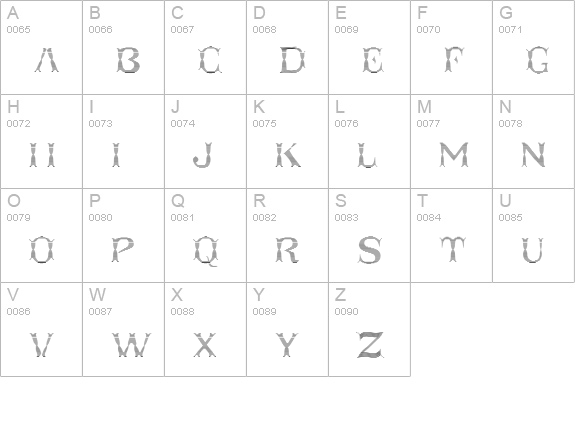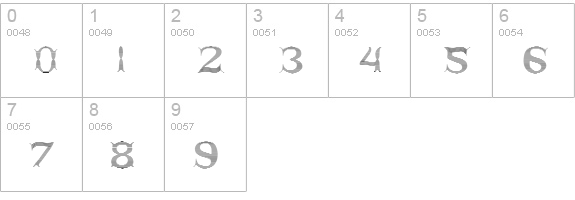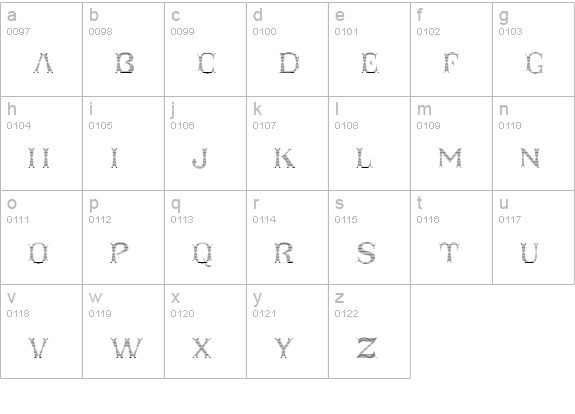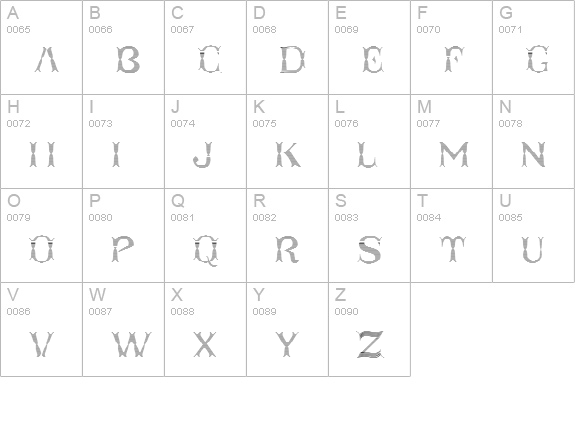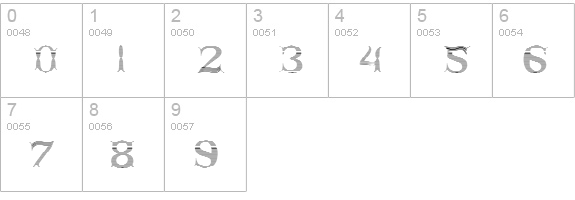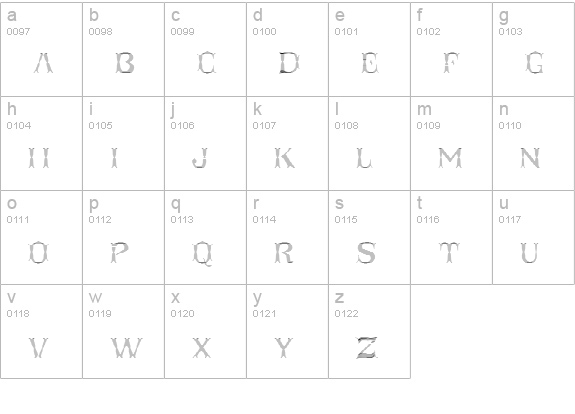
Introducing Taqueria Open Fill Lines font, a captivating and dynamic typeface that is sure to add a touch of boldness to any design project. This font is a perfect blend of modernity and creativity, making it ideal for eye-catching headlines, logos, packaging designs, and more. With its unique and distinctive letterforms, Taqueria Open Fill Lines font will effortlessly grab the attention of your audience and leave a lasting impression. Its clean lines and intricate details make it a versatile choice for both digital and print media. One of the standout features of Taqueria Open Fill Lines font is its bold and expressive nature. Each letter is meticulously crafted to exude a sense of energy and vitality, making it perfect for designs that require a strong and impactful visual presence. What sets this font apart is that it is freely available to download at FontsMarket.com. This means that you can easily access and utilize this font for your personal and commercial projects without any restrictions. Whether you are a graphic designer, a blogger, or a business owner, Taqueria Open Fill Lines font offers you the freedom to unleash your creativity and make a lasting impression. Don't miss out on the opportunity to enhance your designs with the captivating Taqueria Open Fill Lines font. Download it for free at FontsMarket.com and take your projects to new heights with its boldness and versatility.